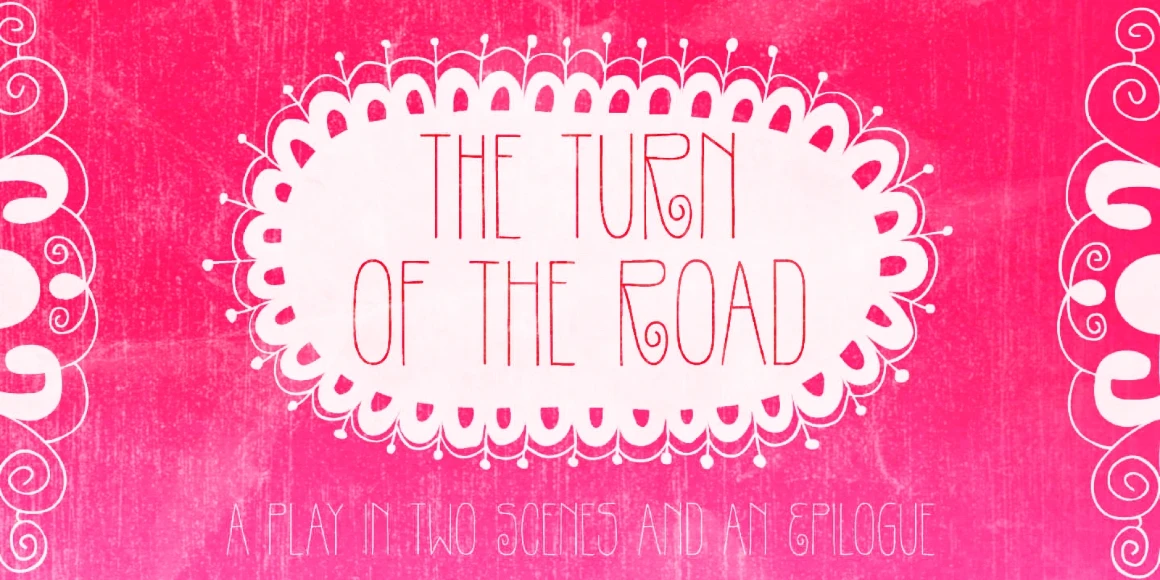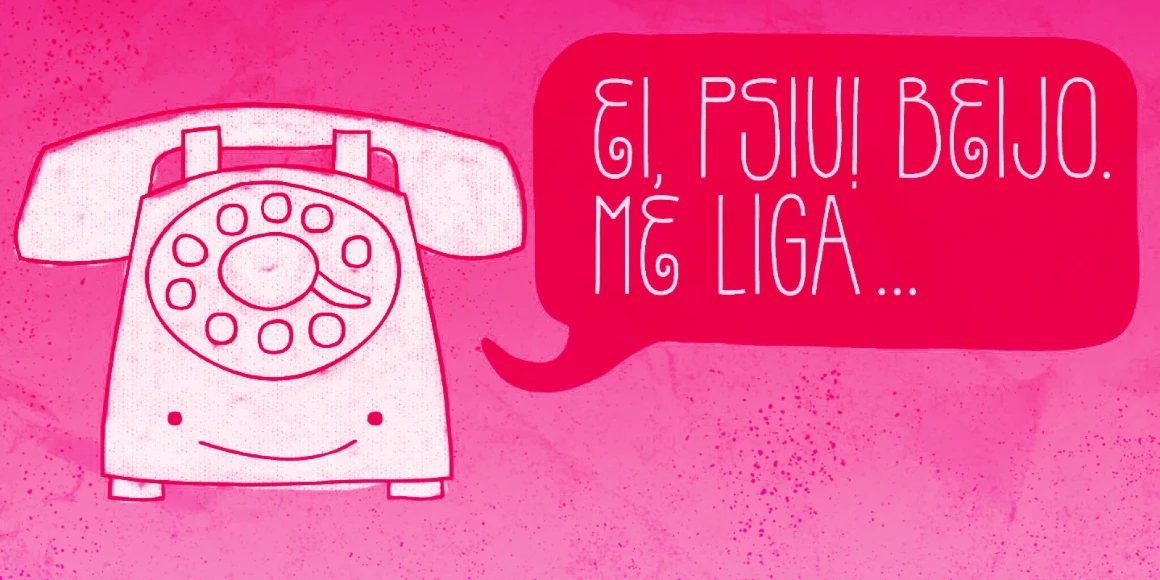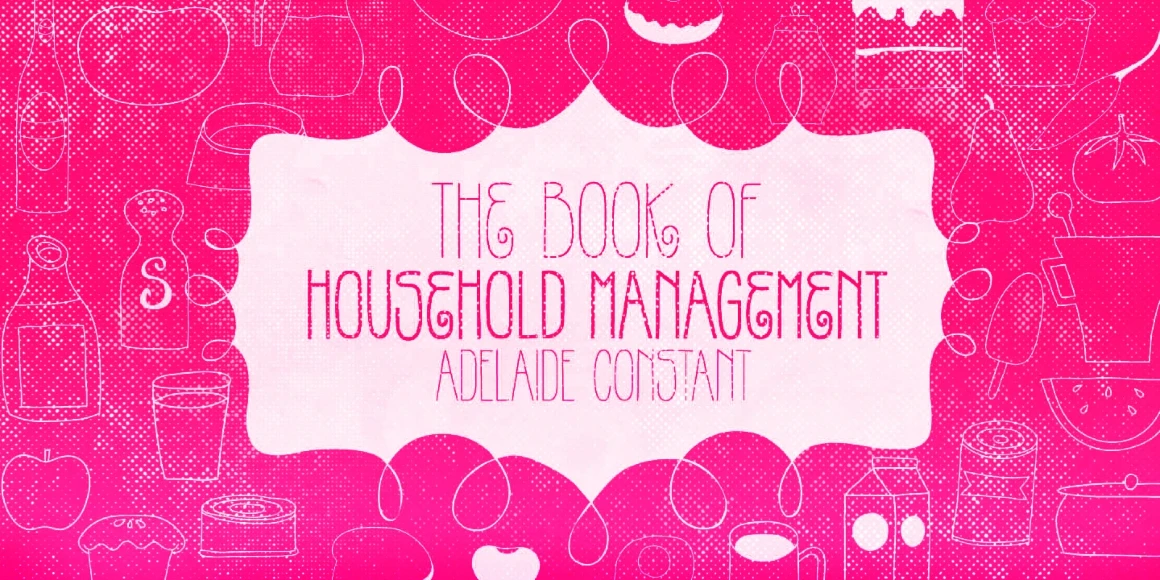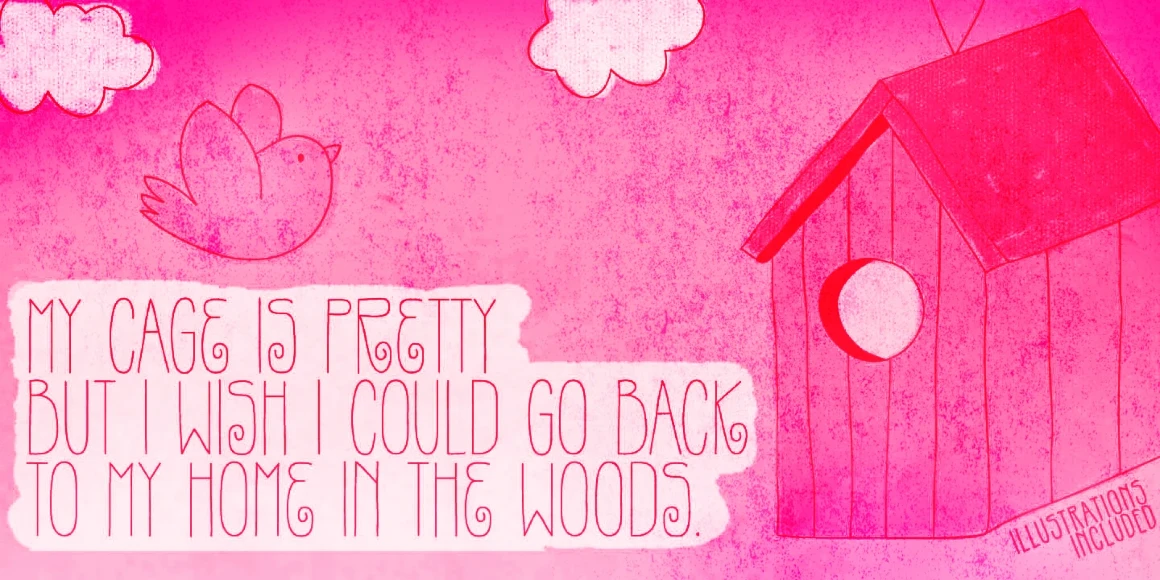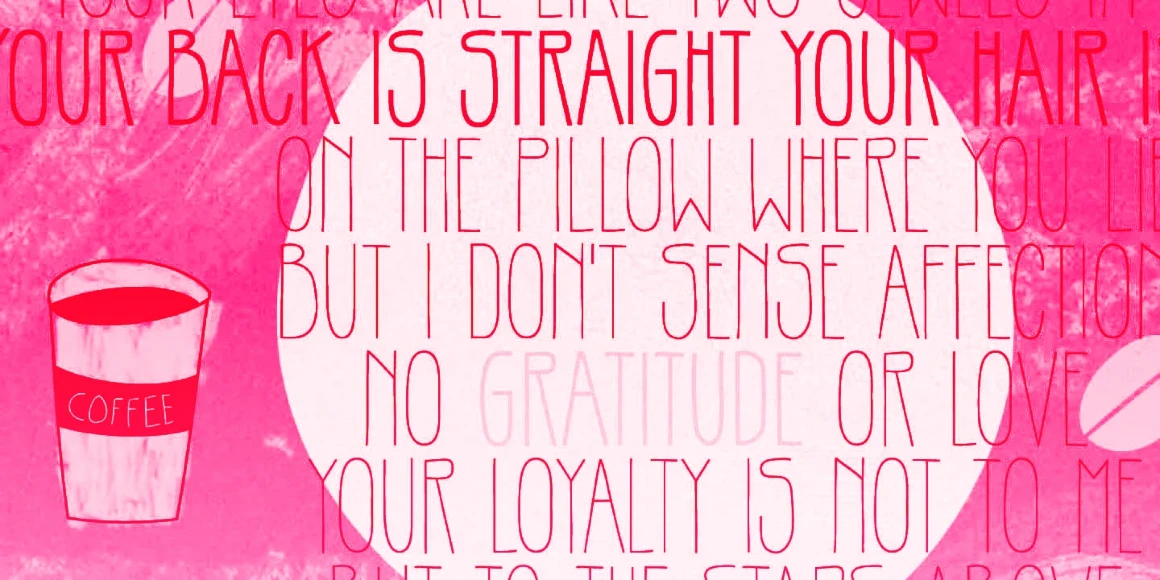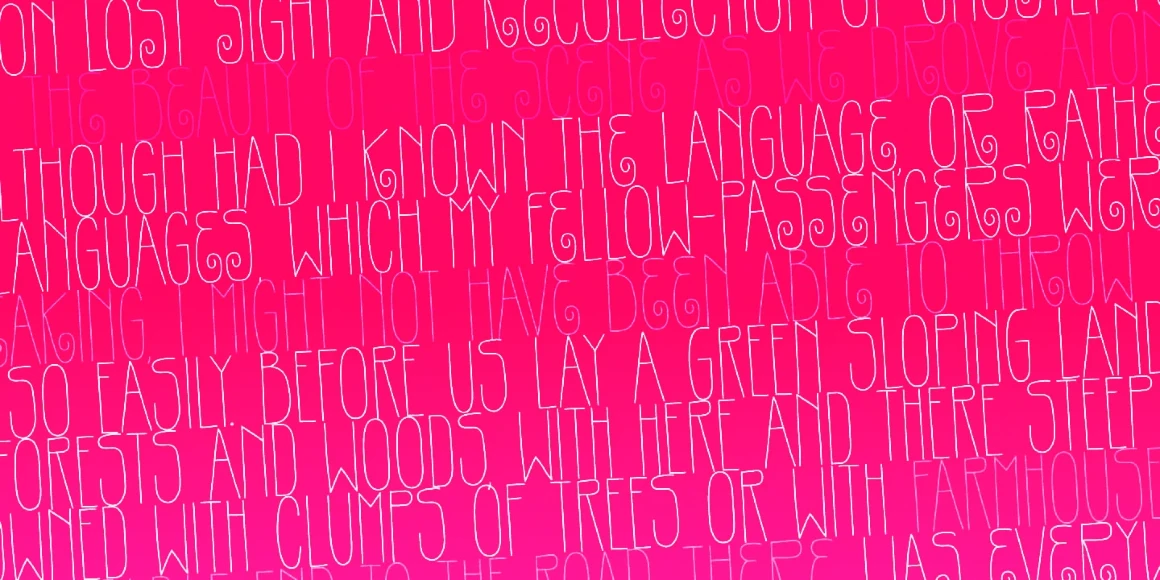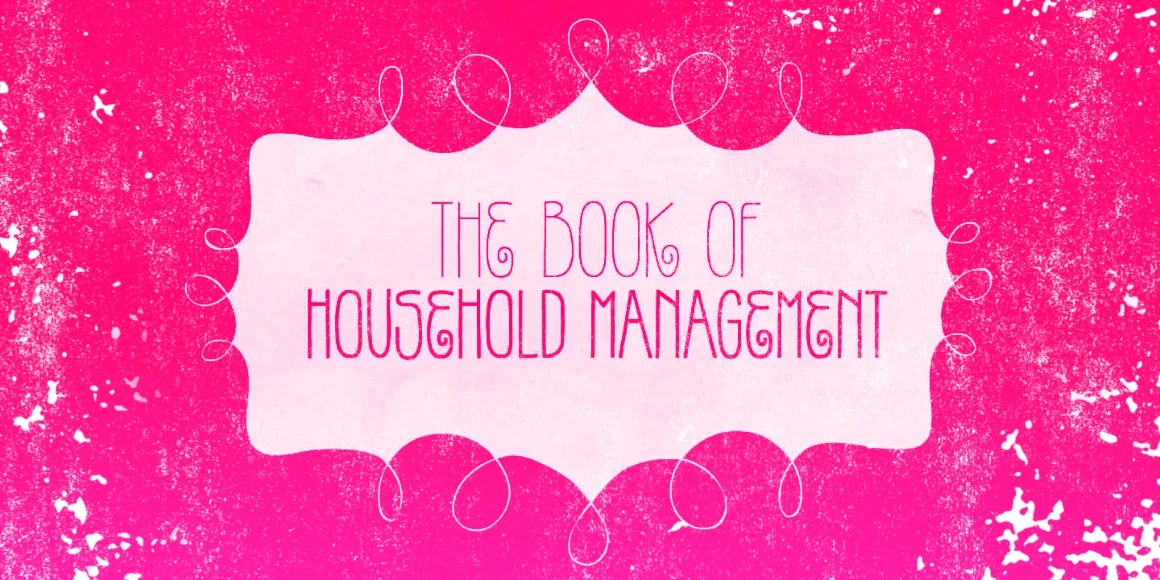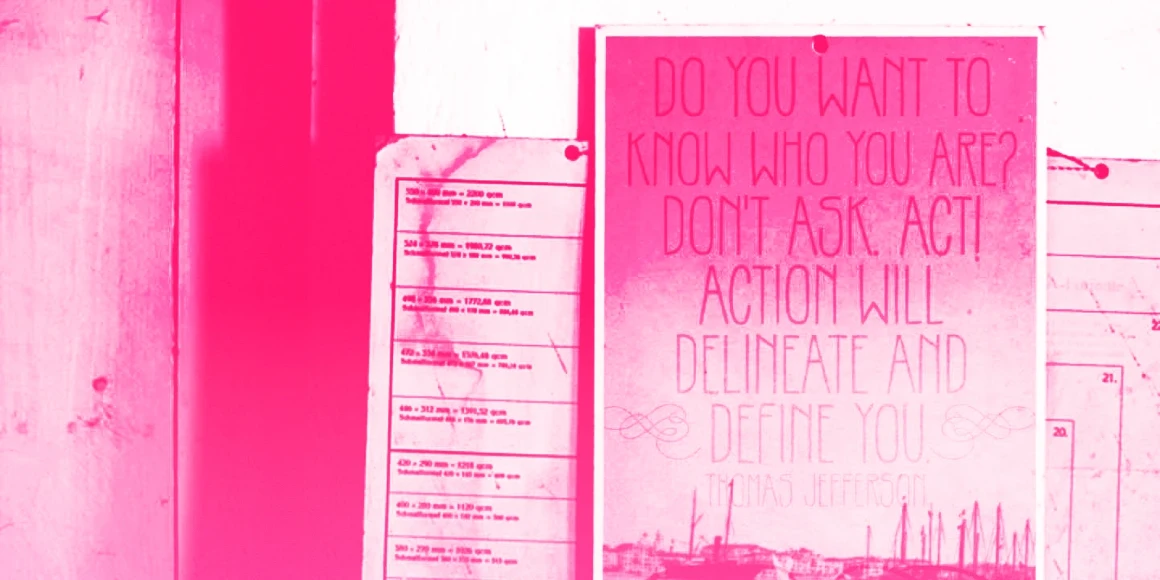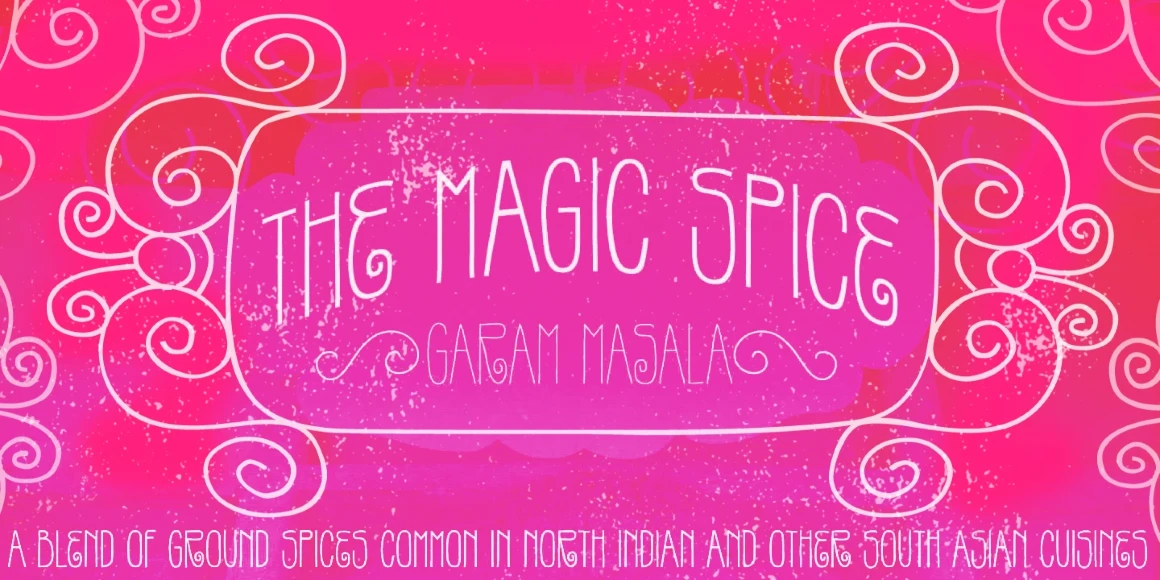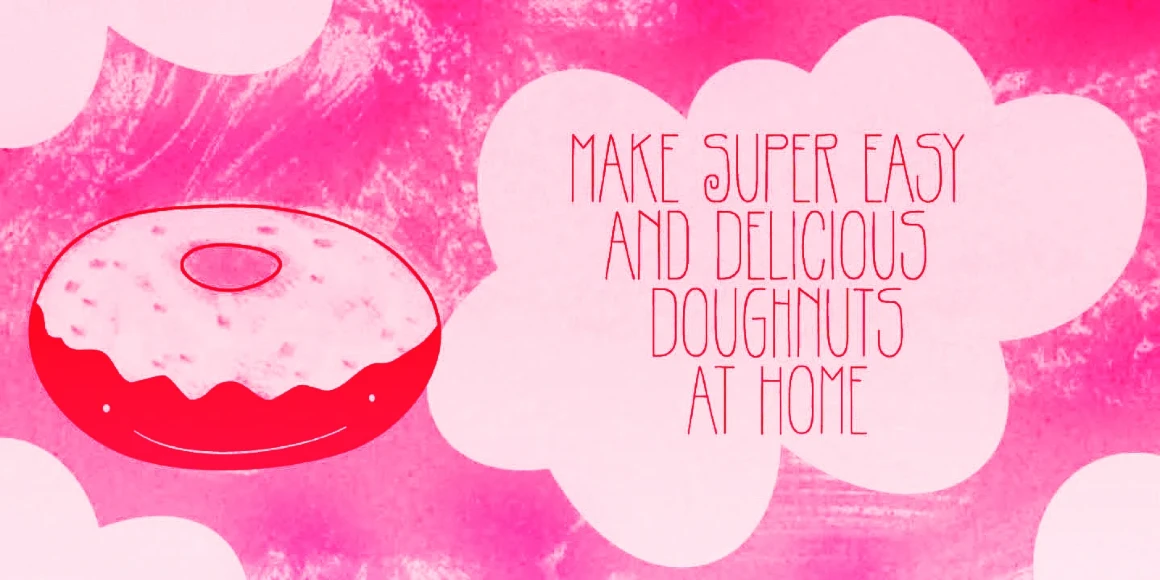
Gentil
Gentil Doodles
Gentil Bold
Gentil Frames
Gentil Regular
Gentil is a charming hand-drawn display typeface. This sweet and friendly family will undoubtedly fit various design applications that need more character. It comes in Regular and Bold, along with Frames and Doodles. Picture Gentil in use for packaging, book covers, scrapbooks, journals, greeting cards, or anywhere else you might need a touch of cute.